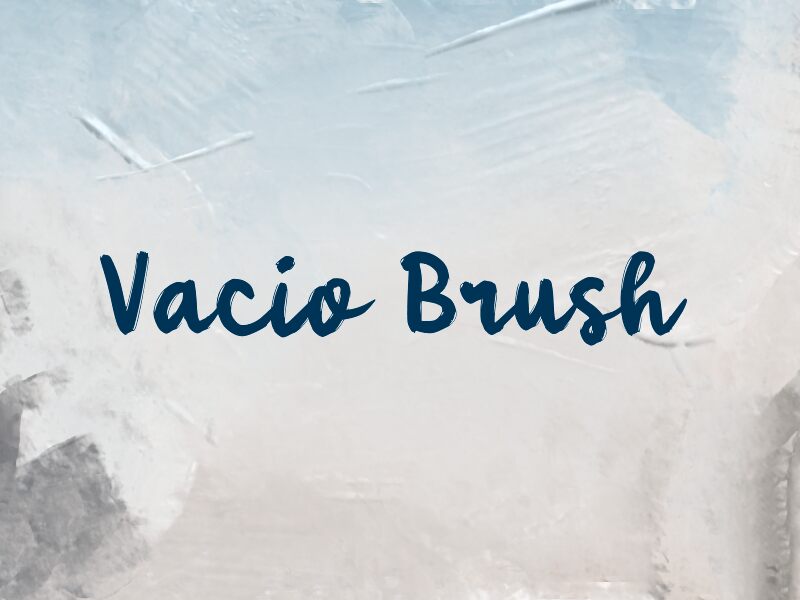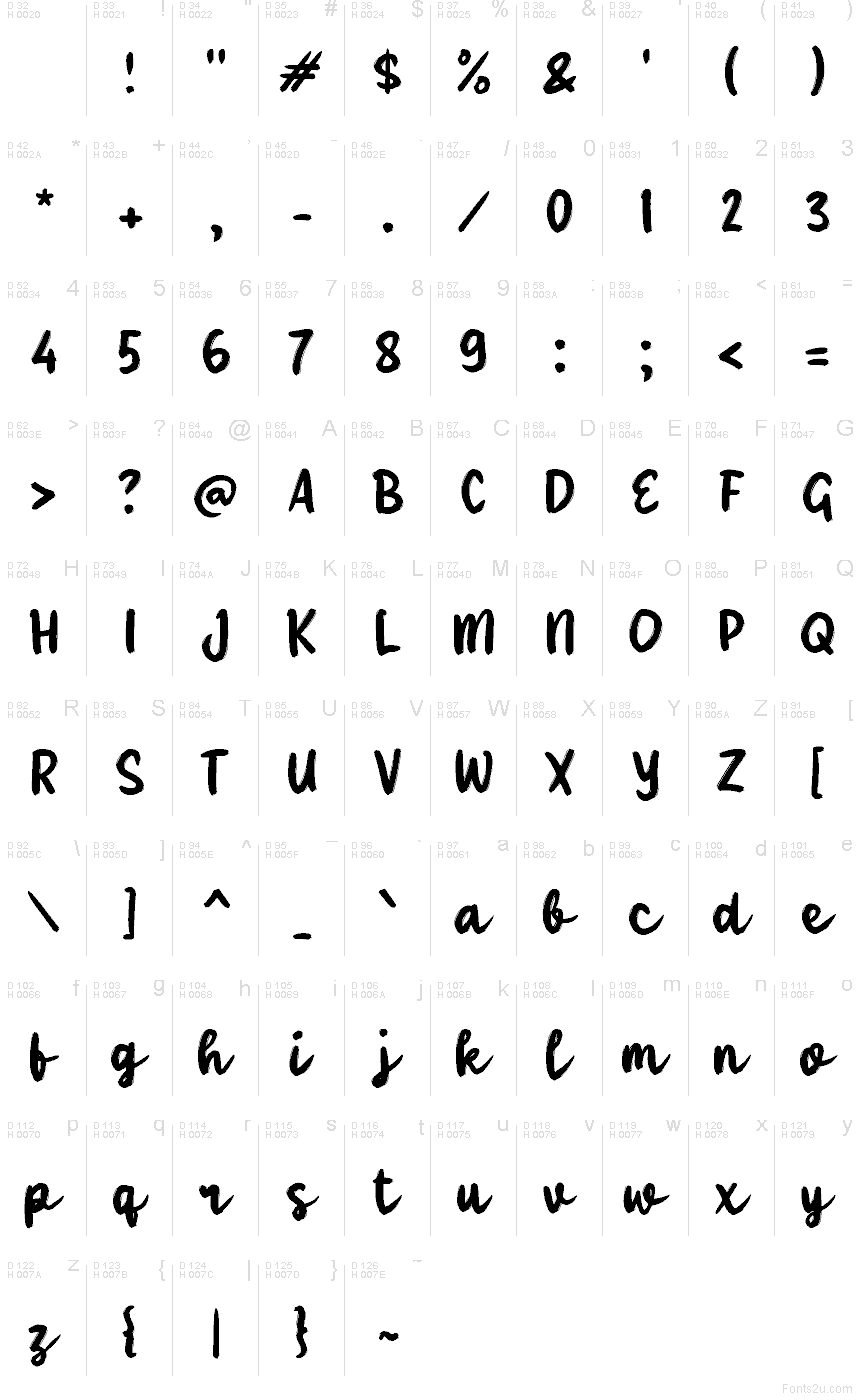
Vacio Brush
Vacio Brush font by wepfont.com is a free brush script typeface with the loose, inky energy of quick hand-lettering. Its strokes are thick and juicy, with soft curves and slightly irregular joins that feel more like real paint than pixels. Letters link smoothly into each other, giving logos, headings, and short phrases a bold, friendly rhythm that’s easy to read while still looking handcrafted.
Using Vacio Brush, you can instantly warm up café menus, product packaging, posters, social media graphics, invitations, and DIY-style branding. This free font shines when set large, where the textured edges and casual flow really pop; pair it with a clean sans serif for body text to keep layouts balanced and legible.